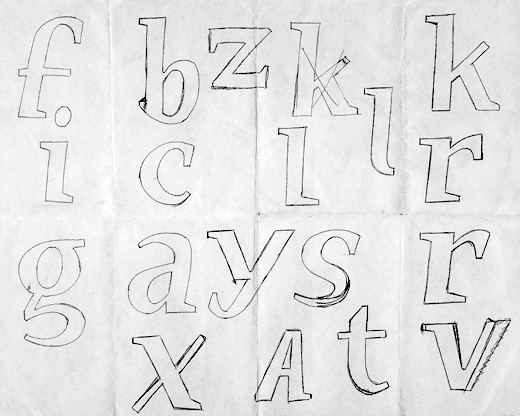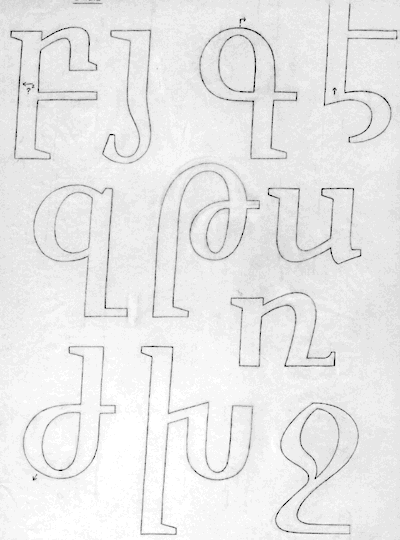
Advice to graphic designers for sketching type?
There are times when I need to sketch out
a name, acroynm, or phrase in a particular
typeface during the conceptual stage.
Usually, I just write out the name with
a thick marker. However, this technique best
conveys form, direction, etc..but NOT the
subtleties of weight, contrast — especially
with serif faces.
My attempts to “draw” out the typefaces more
clearly seem rather dissappointing.
For those who may know, are there any helpful
methodologies or advice to be given as to how to
sketch out letters more clearly?
Note, I am a graphic designer not an illustrator,
nor have I designed type before, thus my drawing
skills lack savvy.
p.s. the technique known as “building-up” the letter,
is one that has merit, but takes too much time with the
filling in...I need something more efficient yet
visually clear.
yes i am curious as well.
caboume - can you explain “building up”?
Graphic designers who trained before Macs and PostScript had to “comp” headlines so clients could review the concept before going further with production.
How? Either you were good freehand, or would trace from type specimen books or even trace designs from Letraset sheets.
Later, when scaling became available on Xerox machines, you could cut and paste a “comped” headline.
What do I do today?
I find a pdf specimen of the typeface, do screen shots, then cut & paste in Photoshop.
Use a reasonably soft pencil — 2B to 4B — well sharpened, and be prepared to do a lot of erasing.
I do a lot less sketching that many people here, but I’ve found that the “ghost” left by an erased not-TOO-soft lead serves as a great guide. Of course the paper plays a huge role there too.
Using pencil and eraser allows the eraser to become a drawing tool as well...
hello_caleb,
“Building up” refers to a technique letterers would
use in which they first drew a stick outline of the shape,
then proceeded to color or “build up” the letter until
the form matured.
I found this link in the Wiki section, “how to..”
It seems pretty informative, though I wonder if there
are more “secrets” designers use.
Norbert,
...
I could just take the easy way out and work straight on
the computer, but I would like to utilize some of the
great skills graphic designers used to have before everything
became digital.
If one could sketch and design well, what a combo huh?
The Letterror stuff (used by John Hudson as well) is very good for display work, but I wouldn’t be myself if I didn’t caution against its use in the making of text fonts...
If you are still bent on drawing the concept... is it for presentation to a client or for your own eyes to refine the idea?
If for some reason you really need to draw this, then starts with a big pad of tracing paper and keep refining shapes and spacing through successive tracings.
Once you are ready to do a clean and precise “comp” get to a better grade paper and find a lightbox (they are still used for reviewing transparencies).
But I still don’t understand why you need to actually draw a refined “comp.”
I must admit that the last logo I designed was first sketched, then refined, then blown way up and re-sketched on clear acetate using indelible black marker... and finally scanned to final.
For some reason, that logo needed to be stroked with tender love and care.
Norbert,
My motivations:
1.) As designers, we spend so much time on the
computer, I’ve sort of rebelled against it. Instead of
relying on it for sketch work too, I’d like to be able
to sketch well so it can be refined and further tweaked
before jumping to the computer so quickly.
2.) Additionally, I would like to show the client my
sketches, in my attempts to teach that design isn’t what
the computer does, it’s all me!
Frank,
you’re right. I need to get away from the screen once in a while as well.
The other truth of the matter is that one (depending on the individual) thinks, creates and processes diffently based on the tools they use.
When I sketch, I use visual “shorthand” for myself... just enough imagery for me to make decisions or experiment more. I can also process several concepts simultaneously on the same sheet of paper.
I also do a lot of tracing and scanning, digital to analog. I even sometimes print out the digitized rendering, retrace, and scan back in.
One thing I’ve recently tried is to build rough skeletons of the letter or mark in AI, then print those, trace them until they get their natural letterflow. This method is proving to be quite usefull.
Just sketch/draw letters. And sketch/draw. There’s no trick or shortcut. Just practice (also freehand)